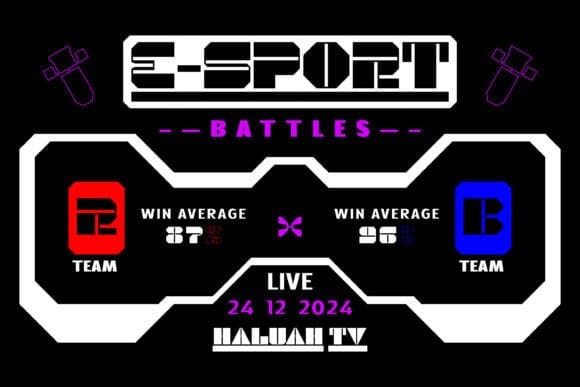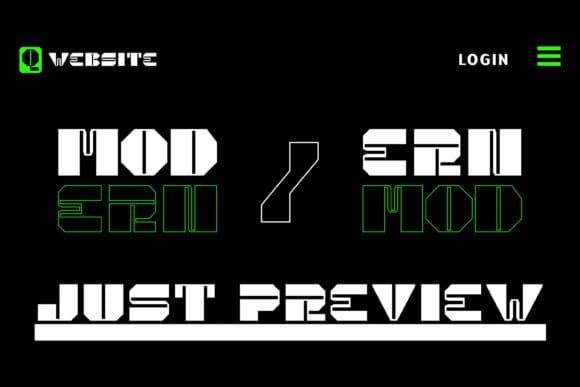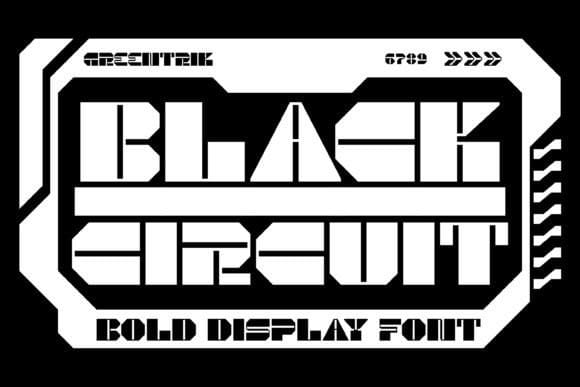
Black Circuit Font
Black Circuit Font, This font is inspired by an electronic circuit board that has stripes of various thicknesses. With very high contrast, this font is perfect for posters, banners, movie titles, book titles, advertising, and various other needs. The BlackCircuit font also comes with an outline style that you can use to add a futuristic feel to your designs. Create your unique design with various alternative characters available in the Black Circuit font.